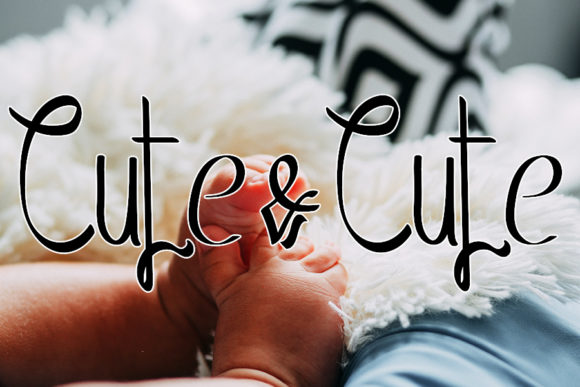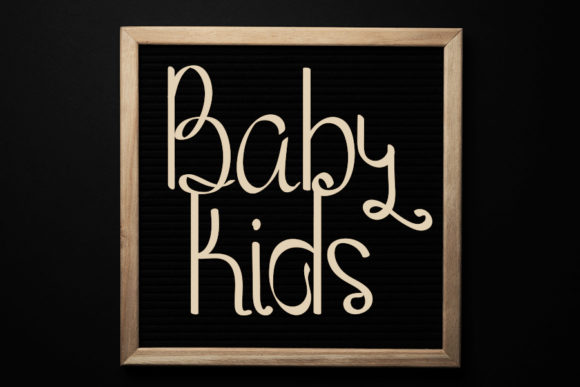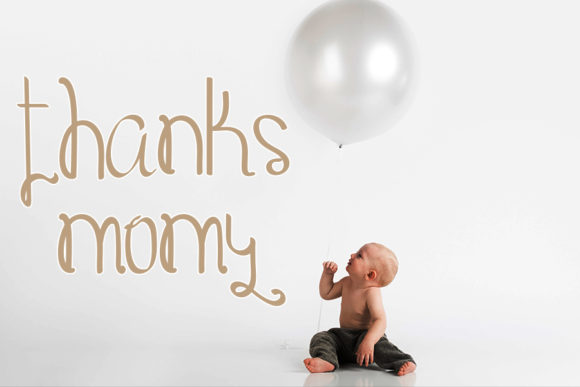
The Perfect Brushstroke for Your Next Design
There’s something magical about discovering the perfect font for a project – the moment when all the pieces fall into place, and your vision comes alive. For designers, this feeling is like a breath of fresh air, a spark that ignites creativity and sets the imagination ablaze. And when you stumble upon a font that perfectly captures the essence of your idea, it’s like hitting the jackpot.
Enter the Abdilla Font, a delicate and luxurious handwritten font that’s sure to elevate each of your designs. With its simple yet elegant strokes, this font is the perfect tool for adding a touch of sophistication and whimsy to your projects. Whether you’re working on a branding campaign, a wedding invitation, or a children’s book, the Abdilla Font is a valuable addition to any designer’s toolkit.
Abdilla Font Key Features
- Unique Characteristics: The Abdilla font features a unique blend of traditional and modern elements, with a focus on elegance and sophistication. Its distinctive letterforms and subtle flourishes make it ideal for high-end branding and design projects.
Abdilla Font Review
I recently had the chance to work with the Abdilla font, and I must say it’s an interesting addition to my design toolkit. Here are my thoughts:
- The unique, organic feel of the font is sure to grab attention. It’s a great choice for designs that need a touch of whimsy.
- The font is highly customizable, with a wide range of styles and weights to choose from.
- The character set is comprehensive, making it a great choice for designs that require a lot of text.
- The font may be too ornate for some designs, potentially overpowering the message.
- The character spacing can be a bit inconsistent, which may affect readability in certain contexts.
- The font may not be the best choice for body text, as it can be quite visually taxing.
Overall, I think the Abdilla font is a solid choice for designs that need a bold, eye-catching look. While it may have some limitations, it’s a great addition to any designer’s toolkit. Just be sure to use it thoughtfully, and consider the needs of your project before making a decision.
Getting the Most Out of Abdilla Font
Abdilla font is a versatile and modern font that can be used for a variety of purposes. To get the most out of it, consider the following tips:
– Use it for headings and titles to add a touch of elegance to your design.
– Experiment with different font sizes and colors to create visual interest.
– Pair it with other fonts to create a unique and visually appealing typography.
Abdilla font is commonly used for:
– Marketing materials such as brochures and flyers
– Digital products such as e-books and presentations
– Website design and development
Alternatives to Abdilla Font
Playfair Display is a luxurious and elegant serif font. It is ideal for use in high-end branding, invitations, and wedding designs. The font features intricate details and ornate flourishes, making it perfect for adding a touch of sophistication to your designs.
Compared to Abdilla Font, Playfair Display has a more classic and traditional feel, whereas Abdilla Font has a more modern and minimalist aesthetic. Playfair Display is also more ornate and detailed, making it suitable for formal designs.
Great Vibes is a modern and elegant script font. It is ideal for use in creative branding, quotes, and titles. The font features a flowing and cursive design, making it perfect for adding a touch of personality to your designs.
Compared to Abdilla Font, Great Vibes has a more dynamic and expressive feel, whereas Abdilla Font has a more neutral and minimalist aesthetic. Great Vibes is also more suitable for creative and artistic designs.
Pacifico is a beautiful and elegant script font. It is ideal for use in branding, quotes, and titles. The font features a flowing and cursive design, making it perfect for adding a touch of sophistication to your designs.